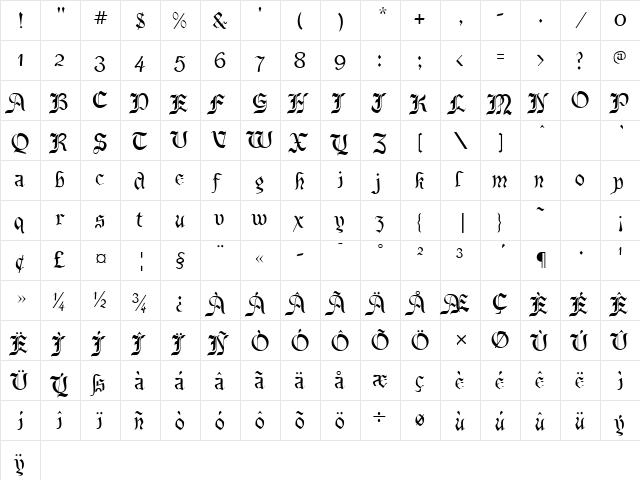
BeneCryptine Regular
Design Context for BeneCryptine Typeface
BeneCryptine is a composed and adaptable typeface that performs quietly and consistently across a wide range of design contexts.